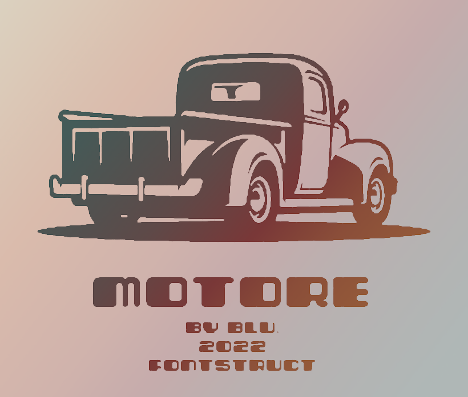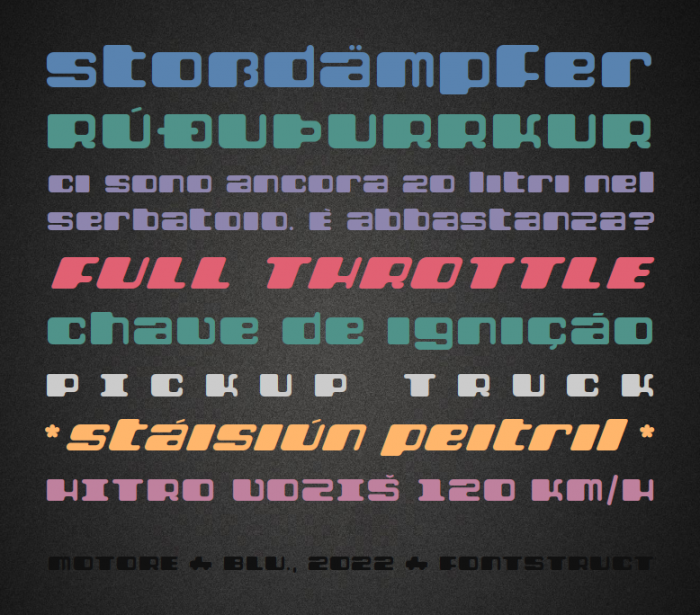
Very nice retro font. I like your simple, yet effective demo pictures too. A true Italic version would be nice. Tiny dots on top of the i, and j ? 10/10
@Frodo7: yes, maybe i'll try to make an italic version sometime. i've tried the tiny dots on the i & j but they don't look that great somehow... i'll add them as alternate letterforms anyway.
Very nice retro font. I like your simple, yet effective demo pictures too. A true Italic version would be nice. Tiny dots on top of the i, and j ? 10/10
Love the retro aesthetic and soft edges 10/10
@Frodo7: yes, maybe i'll try to make an italic version sometime. i've tried the tiny dots on the i & j but they don't look that great somehow... i'll add them as alternate letterforms anyway.
I'm with Frodo7: the italics would be great!
Great work and samples, the little vehicle silhouette is a nice touch.